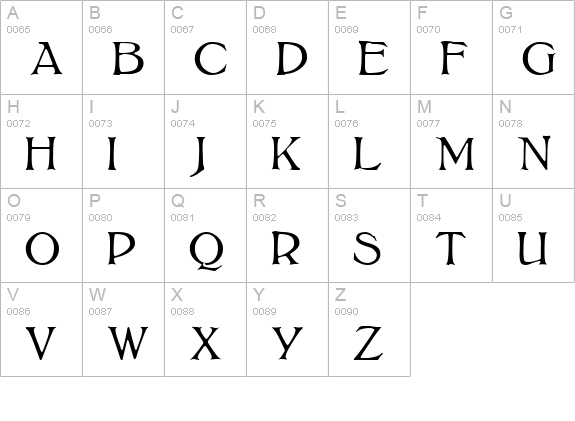
BoltonLight font is a sleek and modern typeface that effortlessly combines elegance with readability. Its clean lines and subtle curves make it perfect for a wide range of design projects, from branding to editorial design. The light weight of the font adds a touch of sophistication and refinement to any text it graces. What makes BoltonLight font even more appealing is that it is completely free to download at FontsMarket.com. This means you can easily access this stunning typeface for all your creative endeavors without any cost. Don't miss out on the opportunity to enhance your designs with the timeless beauty of BoltonLight font, now available for free at FontsMarket.com.